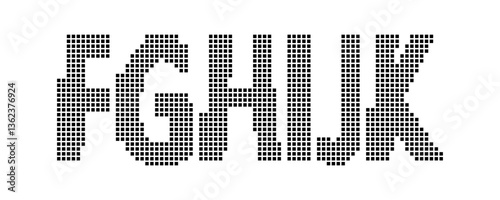
A creative pixelated font with sharp edges and a futuristic aesthetic. Designed using a blocky grid, perfect for game graphics, digital art, and modern branding.